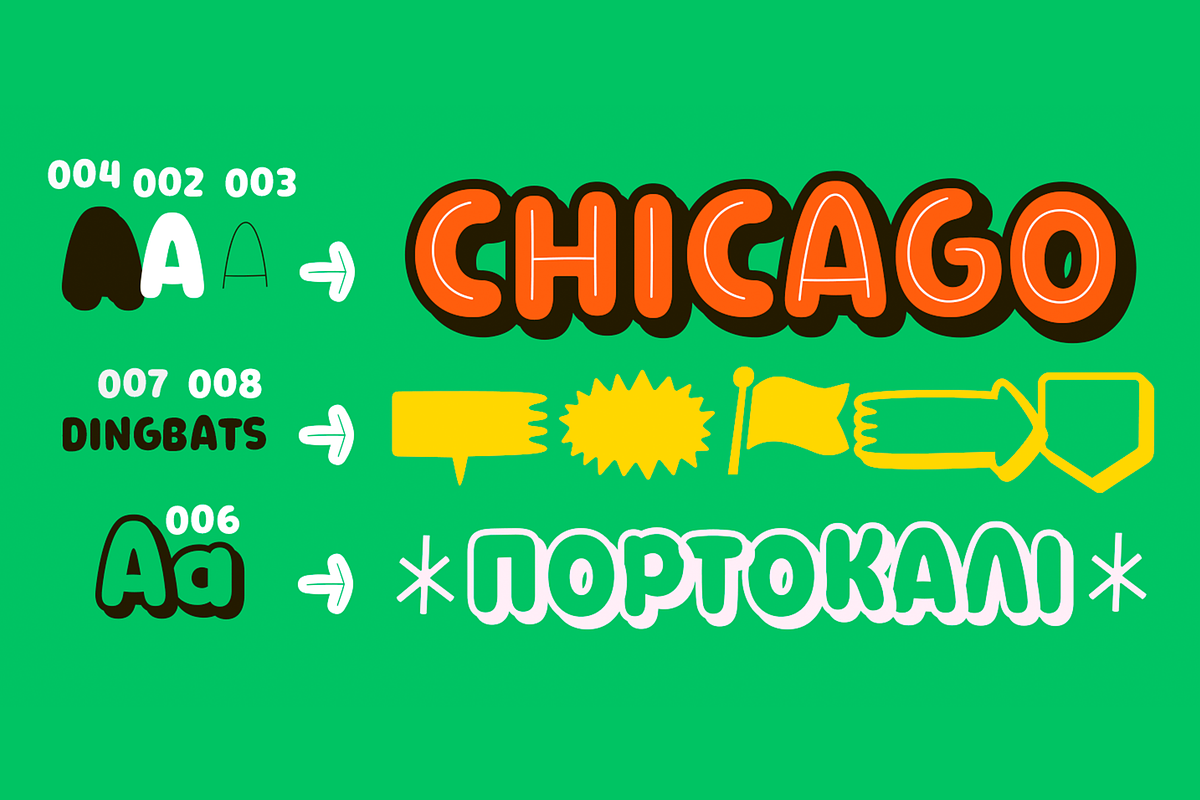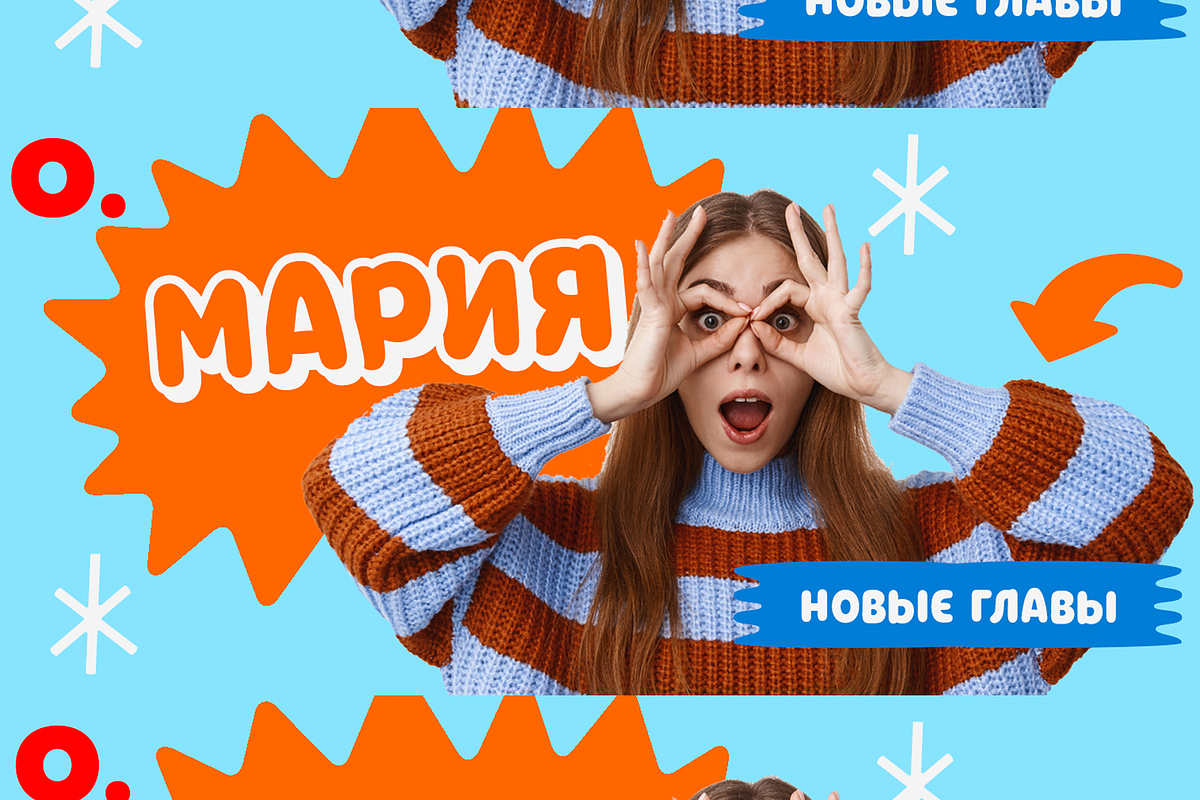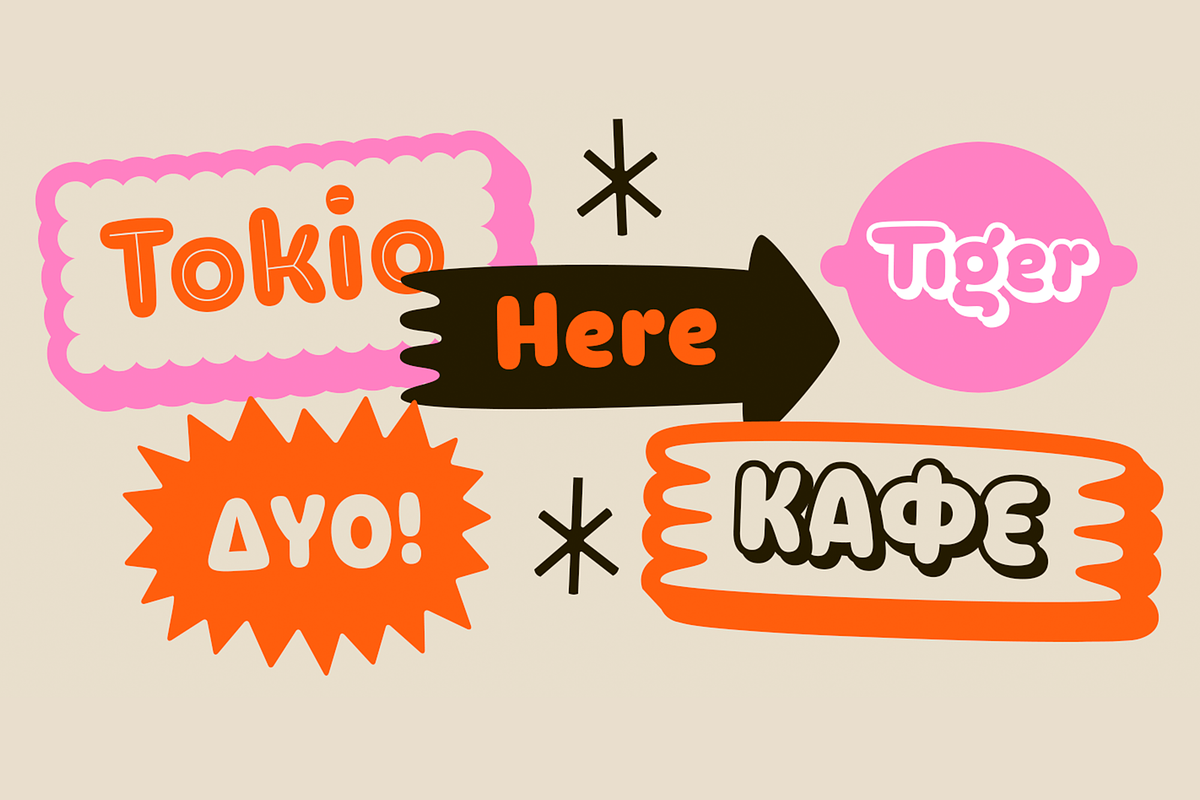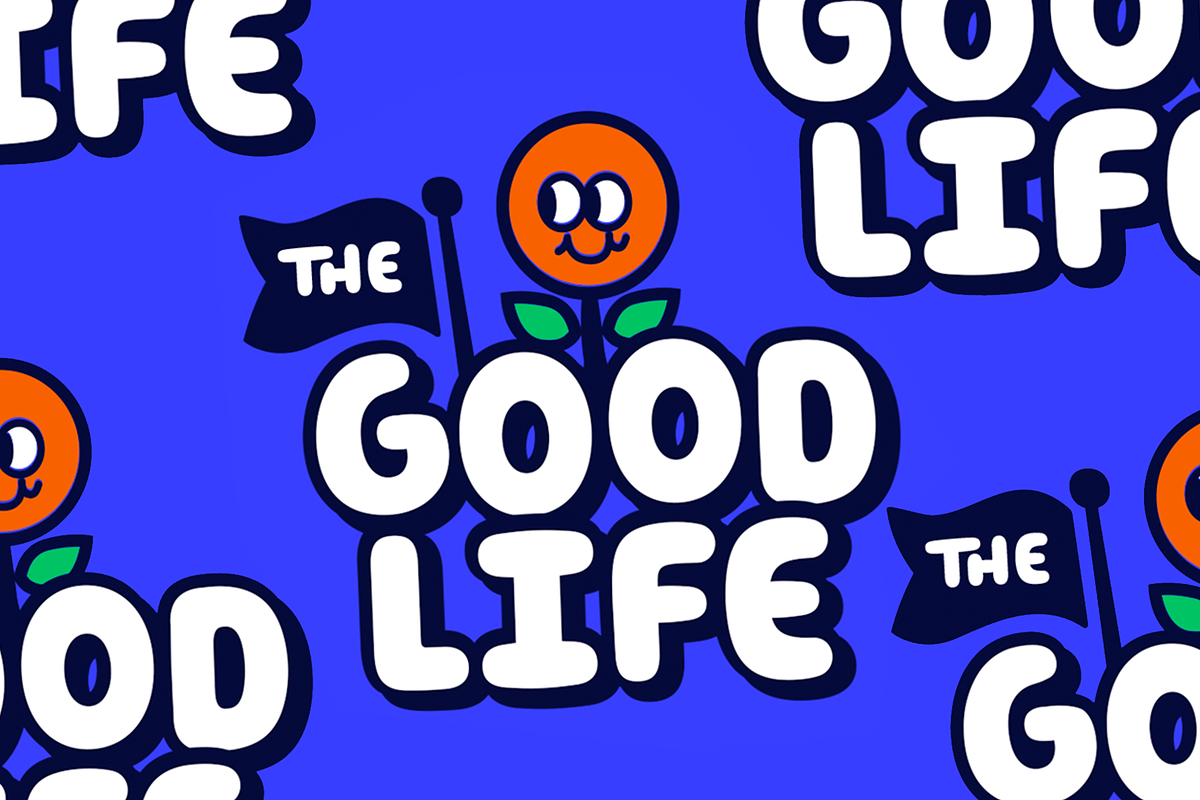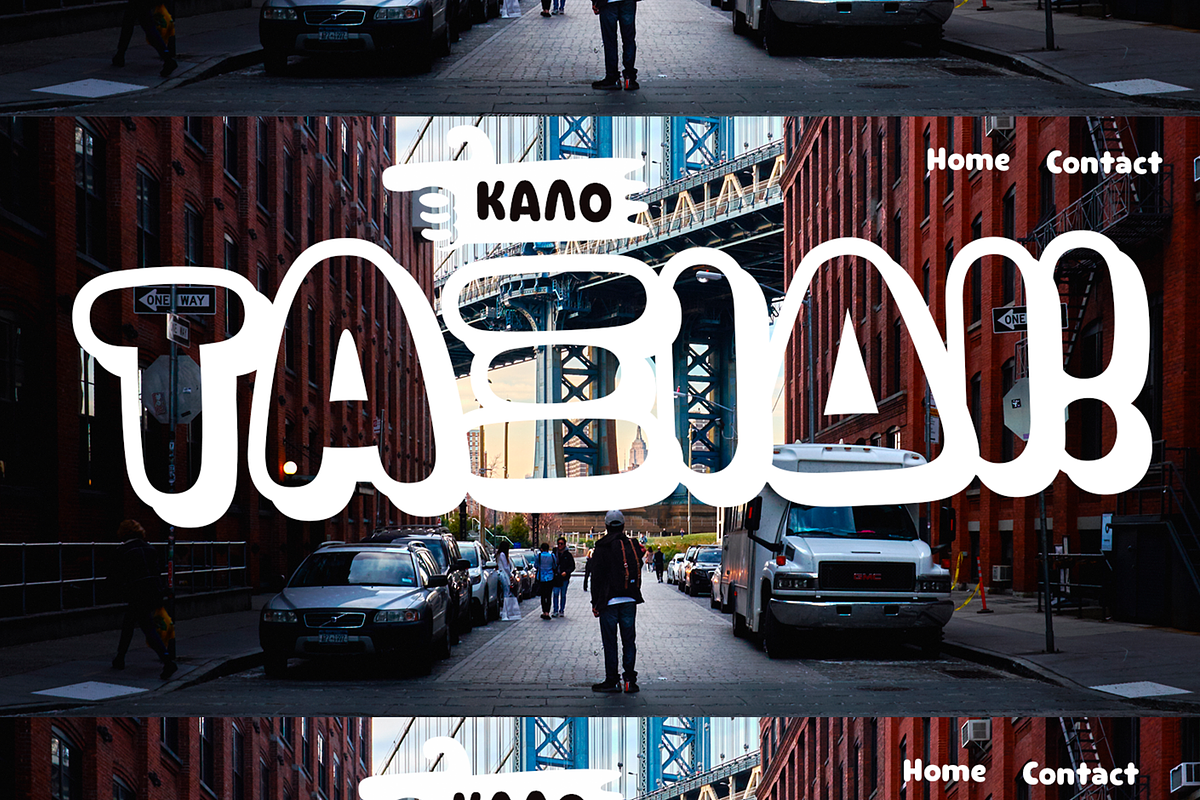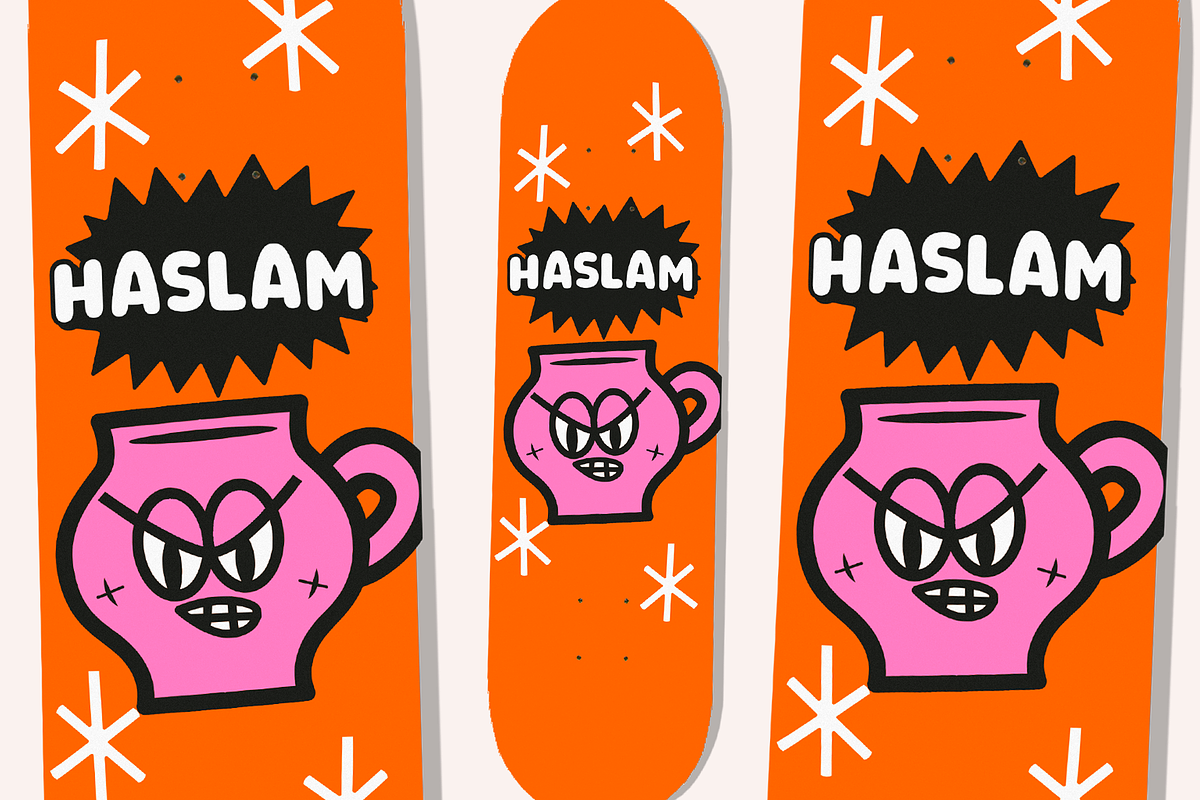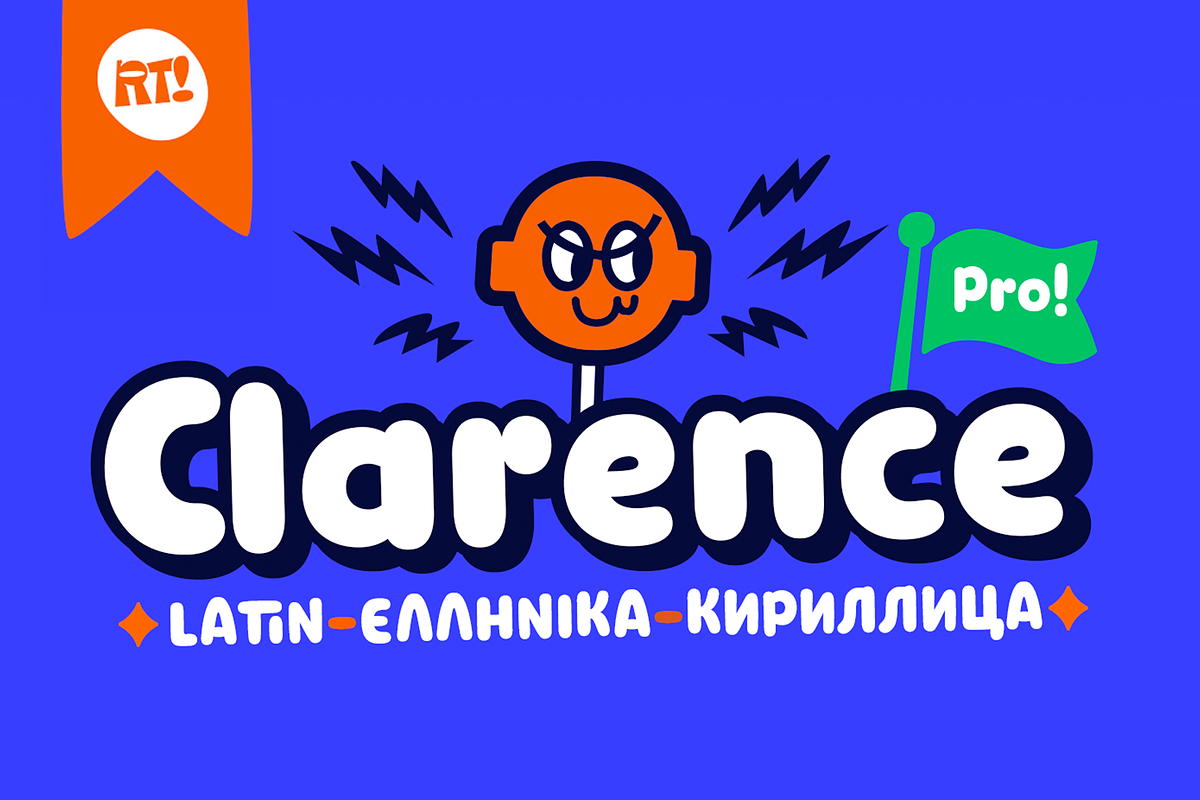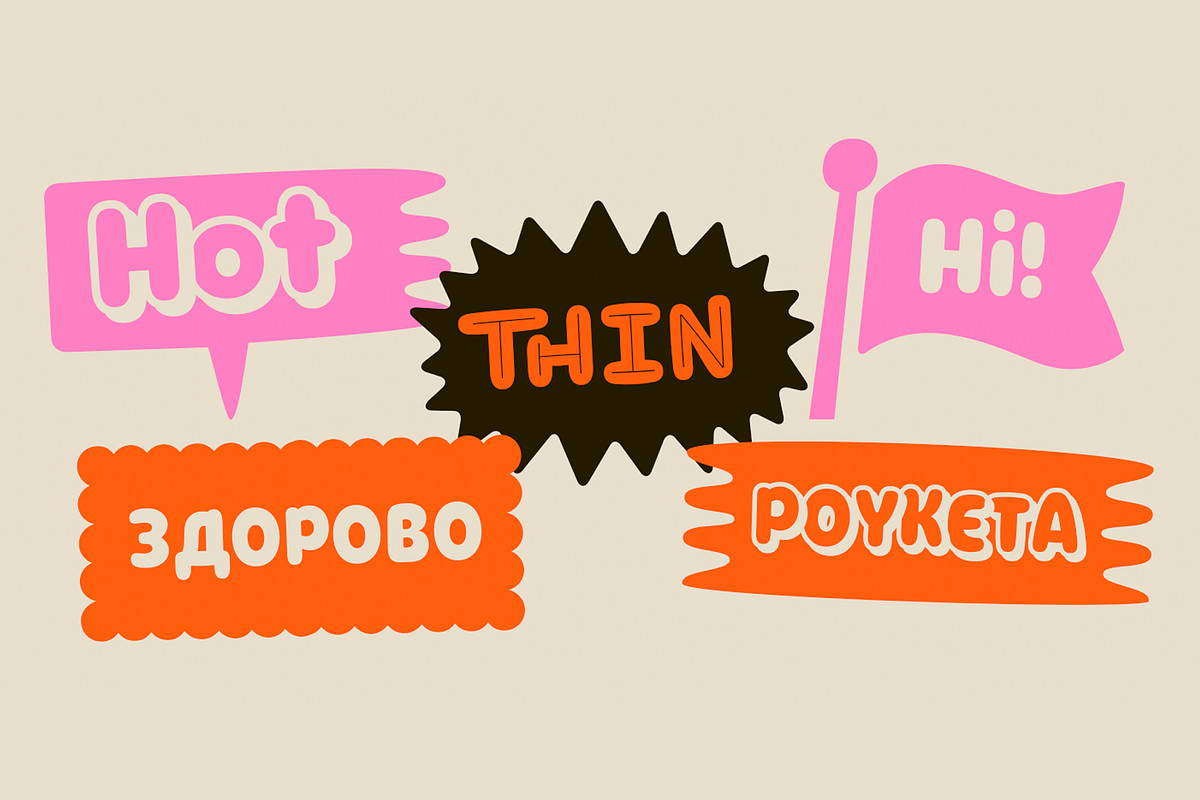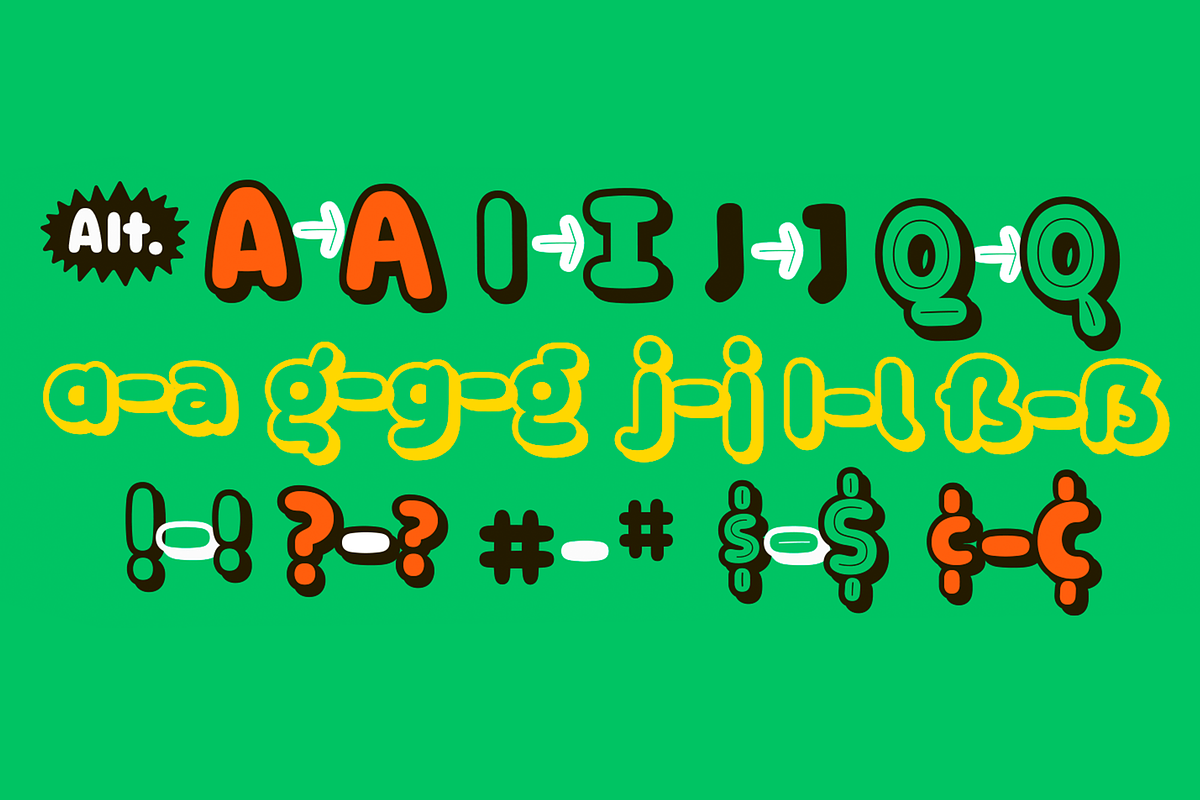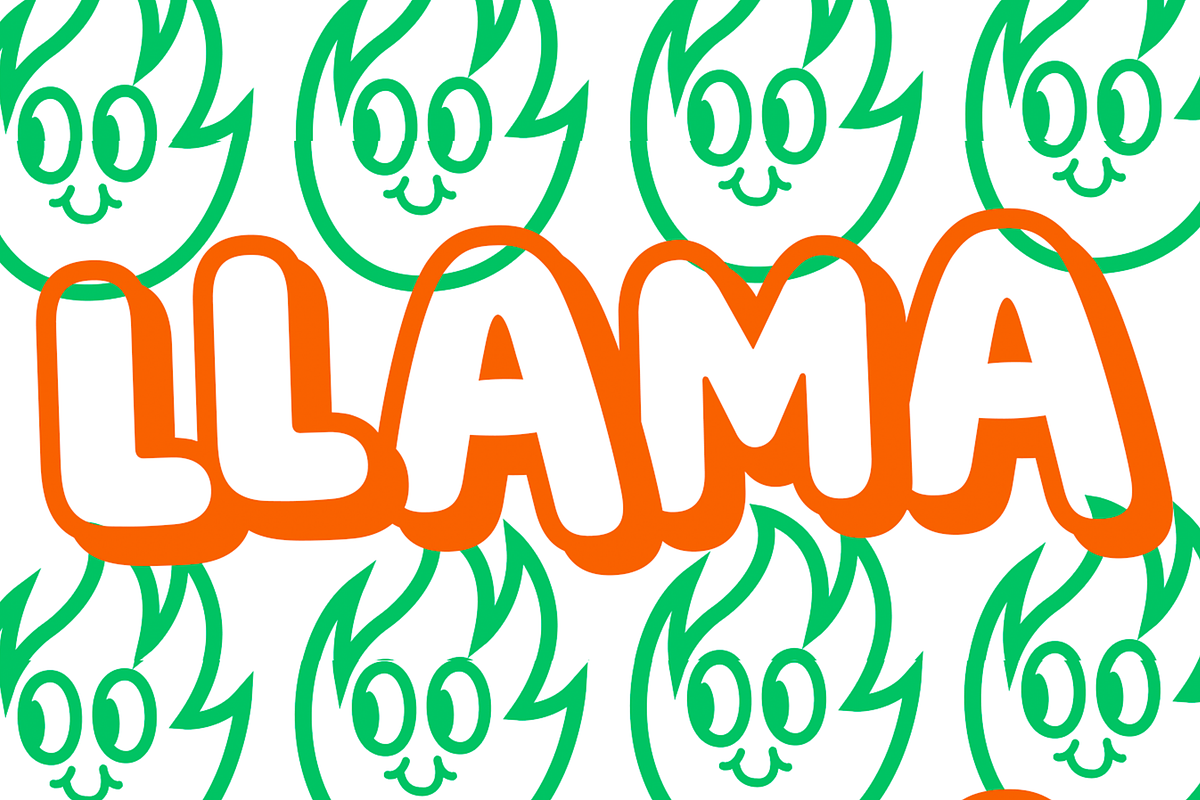
Clarence Pro Year: 2021 Author: Rodrigo Araya - Franco Jonas Concept: Clarence pro, is a version with many alternatives such as ligatures and alternatives in letters, it also contains the Greek and Cyrillic alphabet, especially for children and teenagers!